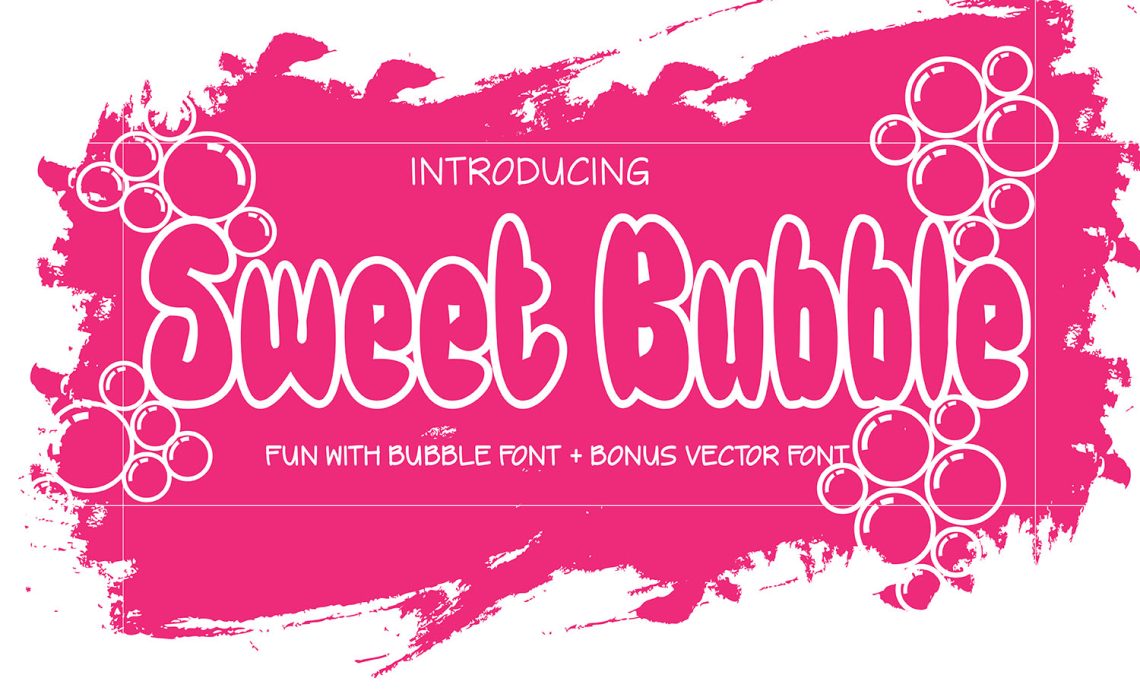
Introducing Sweet Bubble Font, the ultimate choice to add a touch of fun and playfulness to your designs! Created by the talented 38.lineart, this bubbly dingbat font is guaranteed to captivate and engage your audience.
With Sweet Bubble Font, your headlines will come alive with a sense of joy and whimsy. Say goodbye to dull and monotonous designs, as this font breathes life into every word it touches. Its playful outline style instantly grabs attention, making it the perfect choice for eye-catching headlines that demand to be noticed.
But Sweet Bubble Font is not just about looks; it also offers incredible versatility. Whether you're designing invitations, posters, or social media graphics, this font will effortlessly adapt to any project. Its unique and charming characters will infuse your designs with a relaxed and carefree vibe, instantly creating a connection with your audience.
What sets Sweet Bubble Font apart is its additional extras, ensuring that your designs stay cohesive and themed. With these extras, you can explore endless creative possibilities, making each project truly one-of-a-kind. Let your imagination run wild as you combine different elements and create designs that are as unique as your vision.